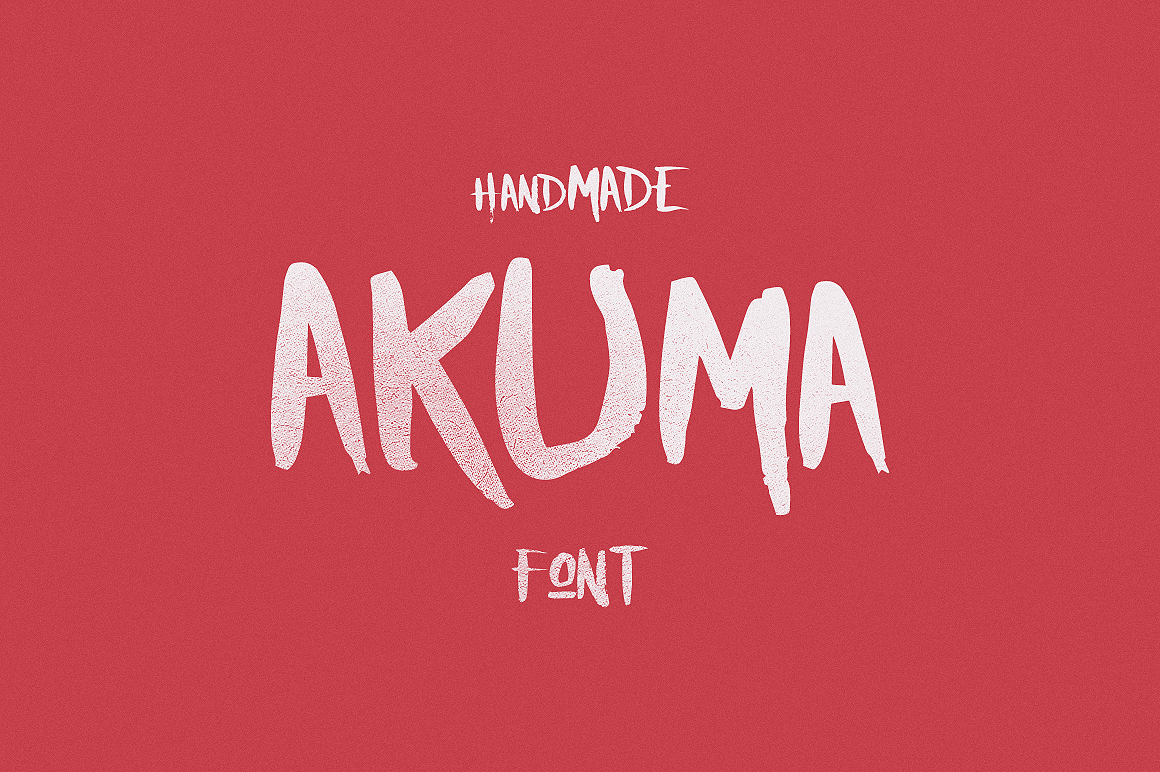
A Creative’s Dream Come True: Unveiling the Beauty of Akuma Font
Have you ever been in a state of creative flow, where ideas pour in and your mind is racing with possibilities? That’s exactly where we were when we stumbled upon the stunning Akuma Font. Its intricate design and handmade charm immediately caught our attention, and we knew we had to share it with the world.
This beautiful font is more than just a typographic marvel – it’s a versatile tool designed for various purposes, from eye-catching posters to professional logos and letterheads. For designers, Akuma Font is a valuable addition to their toolkit, offering endless possibilities for creative expression and unique visual identity.
Akuma Font Key Features
- Unique Characteristics: Akuma Font features a distinctive, bold, and edgy design with a mix of Japanese and Western influences.
- Font Style: Akuma Font comes in multiple styles, including Regular, Italic, Bold, and Bold Italic, offering versatility in design applications.
- Language Support: The font supports multiple languages, including Japanese, English, and other languages that use the Latin alphabet.
Akuma Font Review
Overall, I was excited to dive into the Akuma Font, a unique and edgy typeface that’s perfect for those looking to add a touch of darkness to their design projects. ✨ Here are some aspects that I think work well:
- The font’s bold and striking design, which is sure to grab attention and create a lasting impression.
- Its versatility, as it can be used for both digital and print-based projects, from logos to posters and beyond.
- The wide range of styles and weights available, making it easy to find the perfect fit for your design needs.
However, there are a few limitations that I think are worth mentioning:
- The font may not be suitable for all types of content, as its edgy design may not be the best fit for more formal or professional projects.
- The font’s bold design may also make it difficult to read in certain situations, such as at small sizes or in low-light environments.
- The font’s lack of support for certain languages may also be a limitation for designers working with international clients.
Overall, I think the Akuma Font is a great addition to any designer’s toolkit, as long as you’re aware of its limitations and use it judiciously. With its bold design and versatility, it’s perfect for projects that need a touch of darkness and edge. Just be sure to use it wisely and consider the needs of your audience.
Some common use cases for the Akuma Font include:
– Creating bold, striking titles and headings for presentations, documents, and designs.
– Adding a touch of edginess to your branding and marketing materials.
– Using the font to create eye-catching headlines and titles for social media posts and advertisements.
Getting the Most Out of Akuma Font
To get the most out of the Akuma Font, experiment with different font sizes, colors, and combinations to create unique and striking designs. Use the font in conjunction with other bold and striking fonts to create a visually appealing contrast.